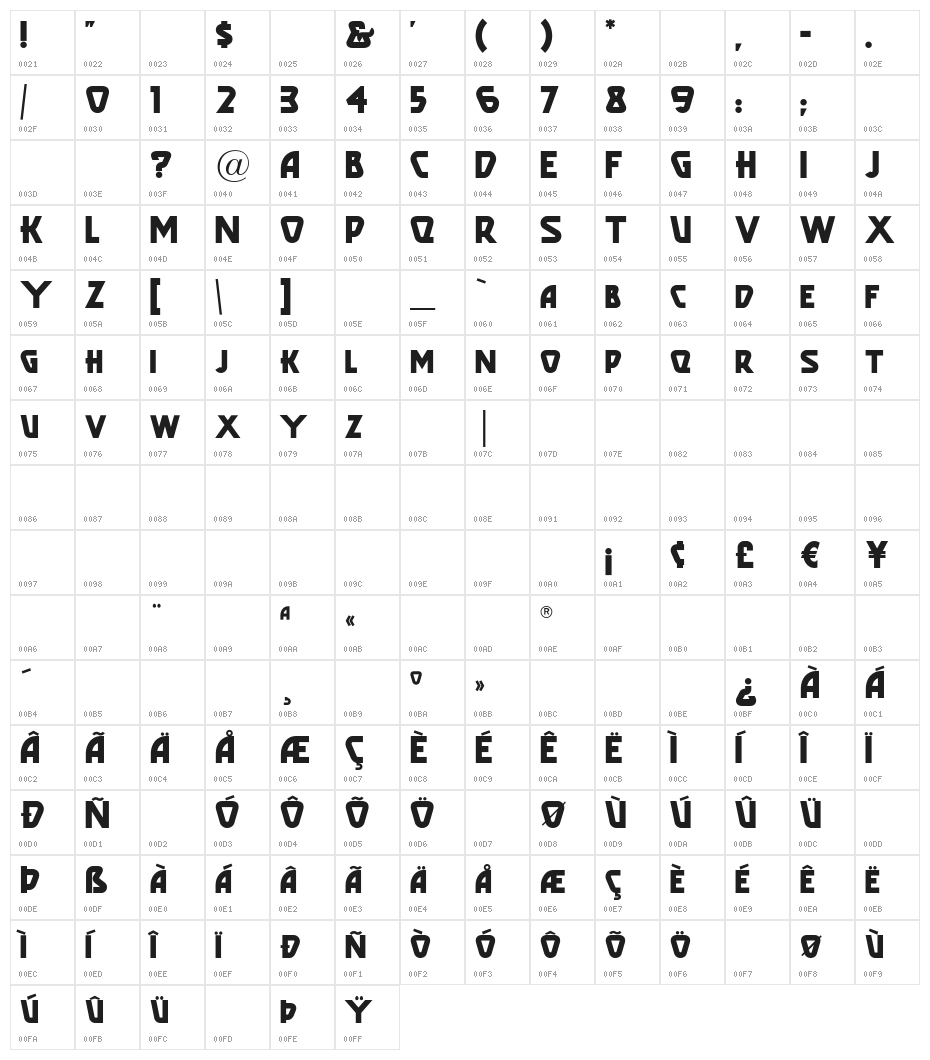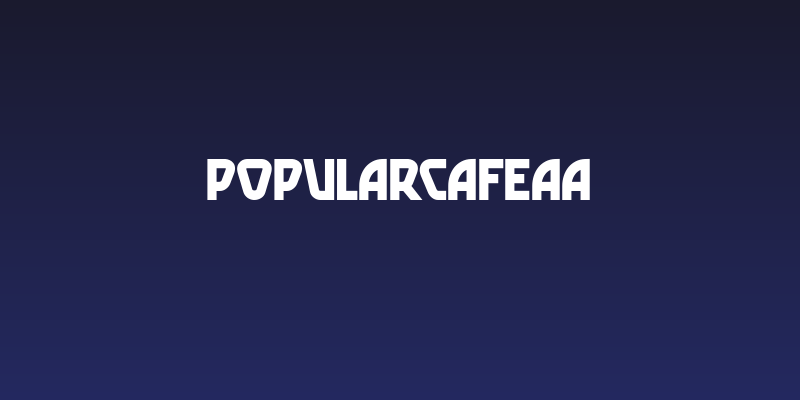
PopularCafeAA Font
PopularCafeAA Description
This font features bold, geometric letterforms with a distinctly modern and futuristic aesthetic. The characters are constructed with sharp angles and clean lines, creating a sense of strength and stability. The uppercase letters are particularly striking, with a uniform height and width that enhances their bold appearance. The numerals and special characters maintain the same stylistic consistency, making this font versatile for various design applications. Its unique style is both eye-catching and legible, suitable for making a strong visual impact.
| Proposed Projects | Ideal for branding, posters, headlines, and any design project that requires a strong, modern aesthetic. |